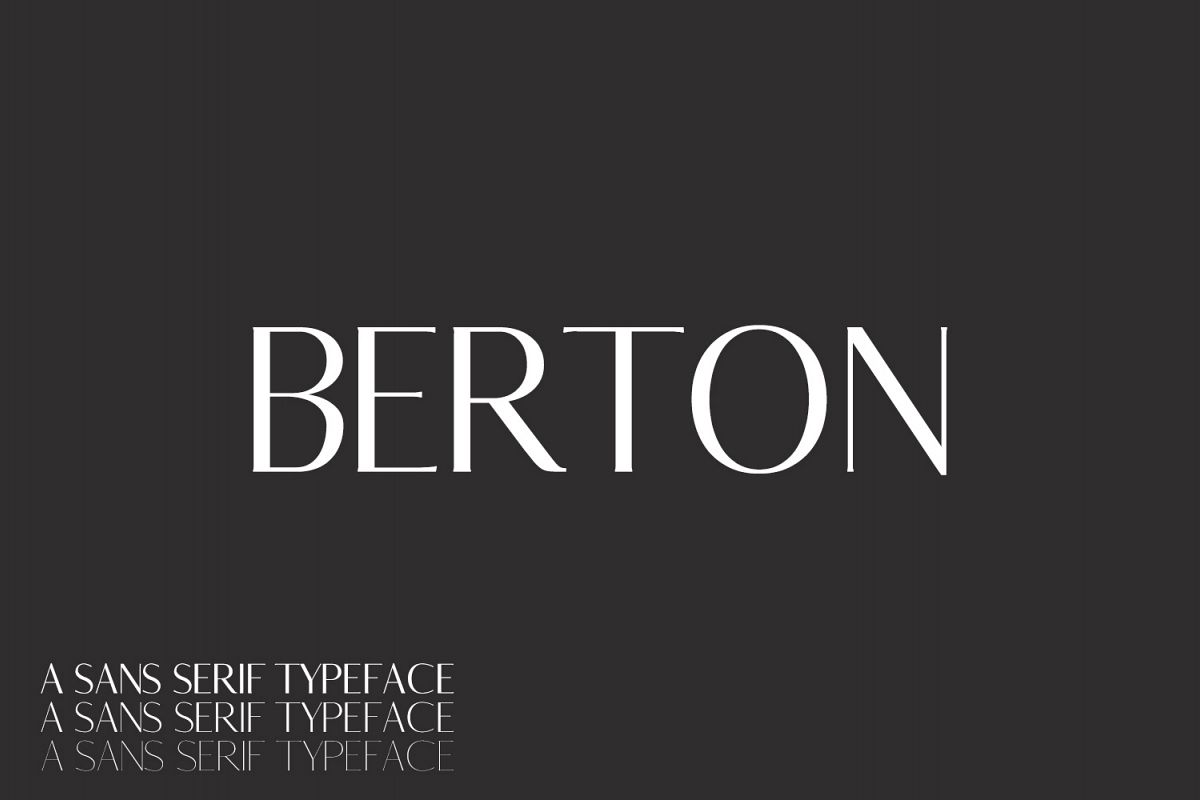
Berton Sans Serif Typeface
Berton Sans Serif font is a set of 3 weights font family. It is good for making creative templates and stationary. Beacher typeface suits best for modern / clean designs, logos, headlines, banners and templates etc.It looks gorgeous in all caps with a wide-set spacing if you want to try a classy look, or beautiful on its own in capital and lowercase letters for something completely timeless.Included Features:
• Regular, Thin, Light Weights
• Extras: Uppercase Multilingual Letters, Lowercase Multilingual Letters, Numbers & Punctuation + Alternatives.
• Berton is a highly versatile Font Family Pack.
• Includes 3 weights
• The perfect choice for Modern, Fashion & Magazine Titles.
• Great for use on quotes, short phrases, magazines, logotypes and all sorts of advertising.